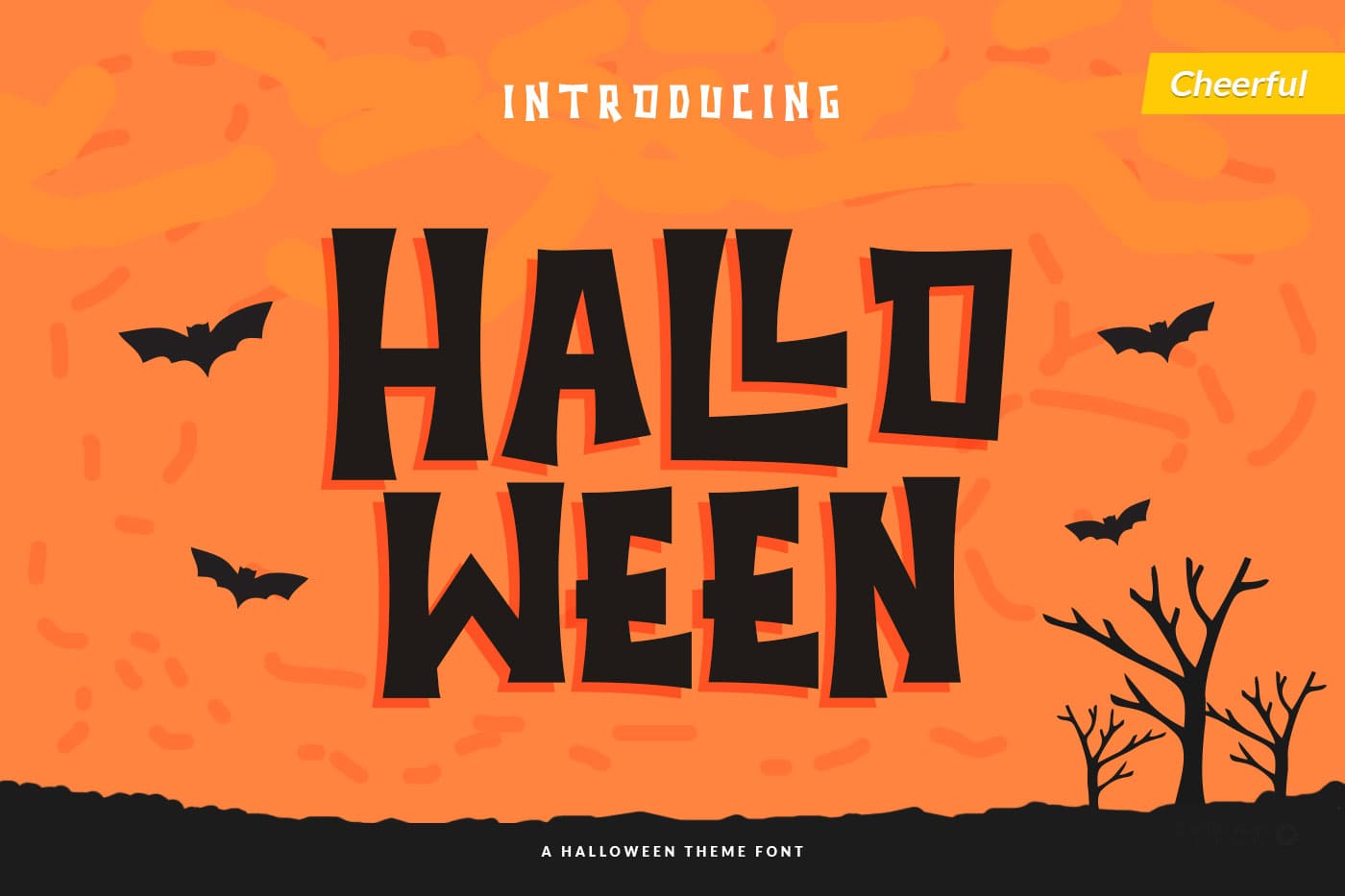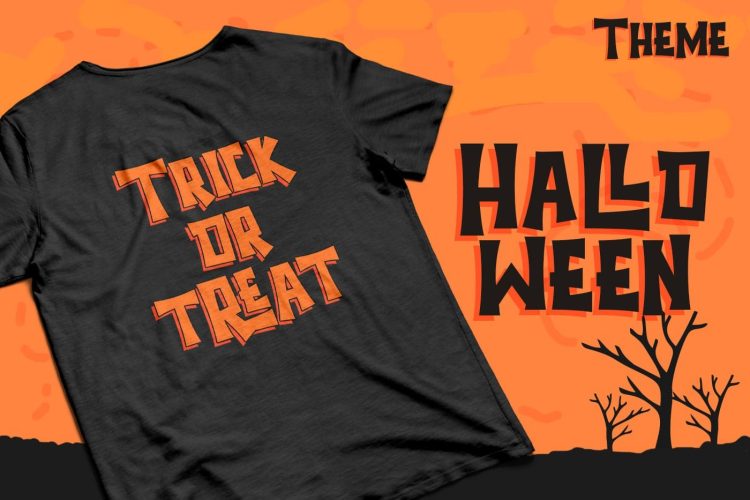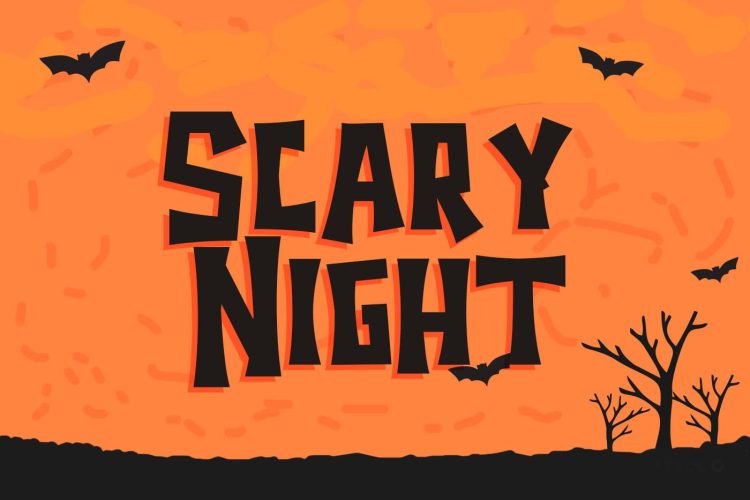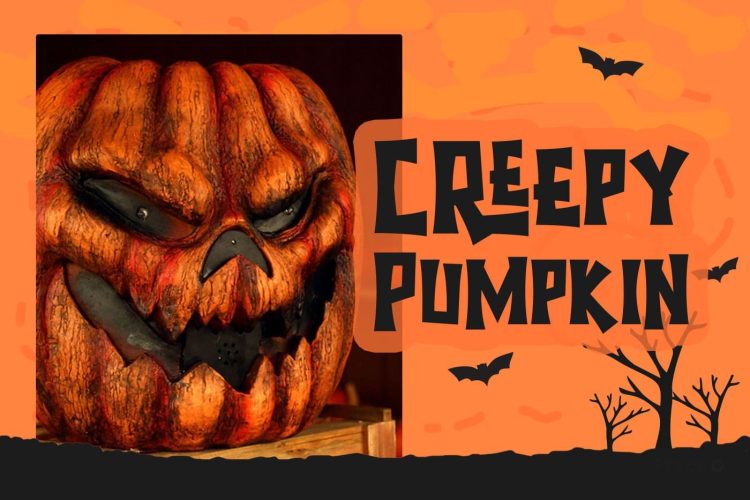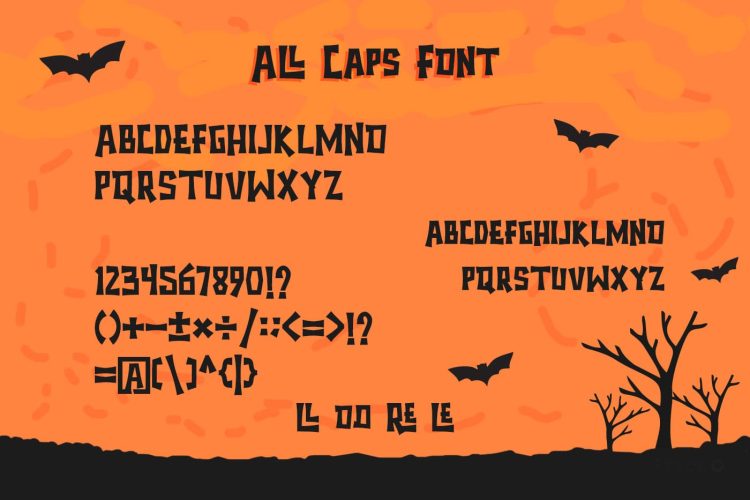
Halloween is the perfect Halloween font: scary, weird and creepy. It will add a touch of horror to any design project!Trimstd is amazing
Halloween – Scary and Creepy Display Font